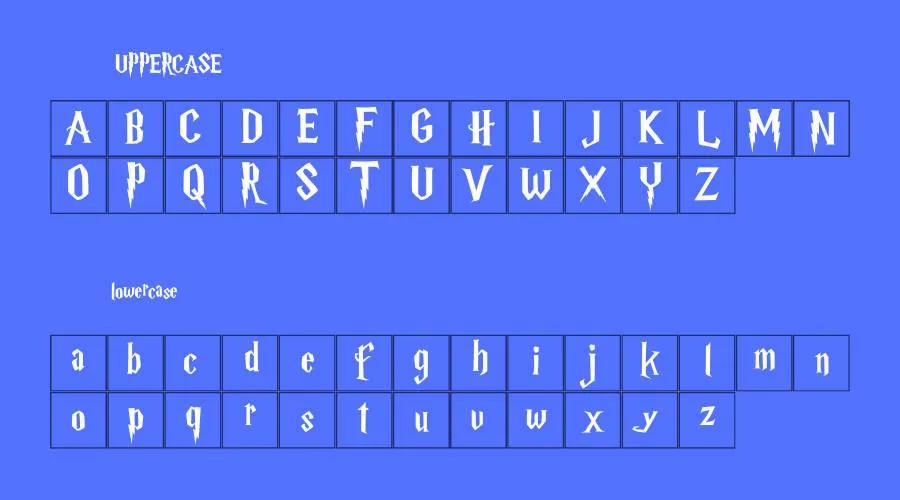
About Harry Potter Font
Harry Potter Font stands out for its distinctive combination of balanced weights and signature style. Ideal for magazine covers, it provides the personality and academic acceptance that professional projects demand. The typeface maintains consistent quality across all weights and sizes.
Key features include refined geometric precision and practical discretionary ligatures, enhancing typographic expression. In reference books applications, Harry Potter Font demonstrates exceptional weight distribution. The stroke contrast and institutional acceptance contribute to its distinctive character and professional appeal.
Harry Potter Font |